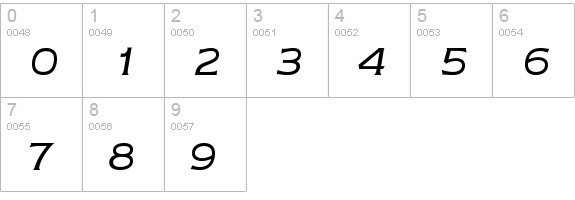
NewtextEF-BookItalic Font Details
Introducing NewtextEF-BookItalic font, a stylish and modern typeface that exudes elegance and sophistication. This italic font is perfect for adding a touch of flair to your projects, whether you're designing a website, creating a flyer, or crafting a logo. What sets NewtextEF-BookItalic font apart is its sleek and flowing design, which effortlessly captures attention and adds a touch of sophistication to any text. The slanted letters create a sense of movement and dynamism, making your words stand out and leave a lasting impression on your audience. Best of all, NewtextEF-BookItalic font is available for free download at FontsMarket.com. Whether you're a seasoned designer or just starting out, this font is a versatile and valuable addition to your collection. Don't miss out on the opportunity to elevate your designs with the timeless elegance of NewtextEF-BookItalic font. Download it today and see the difference it can make in your projects.